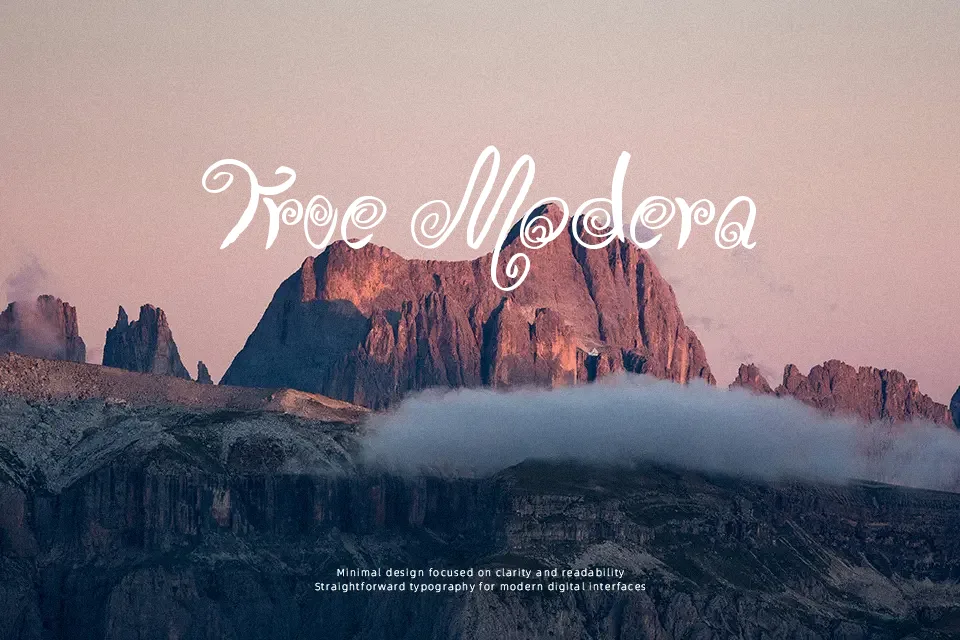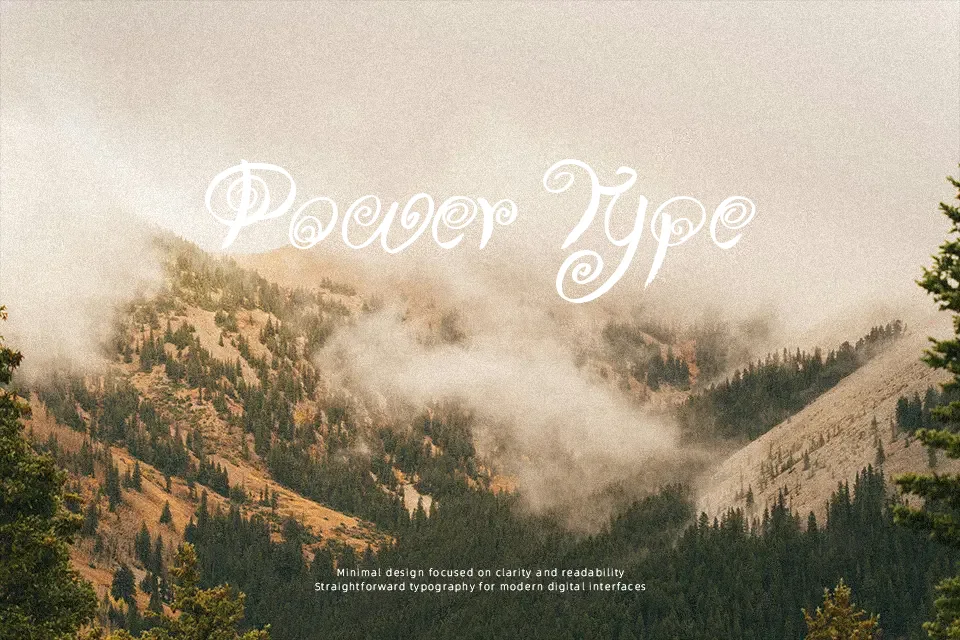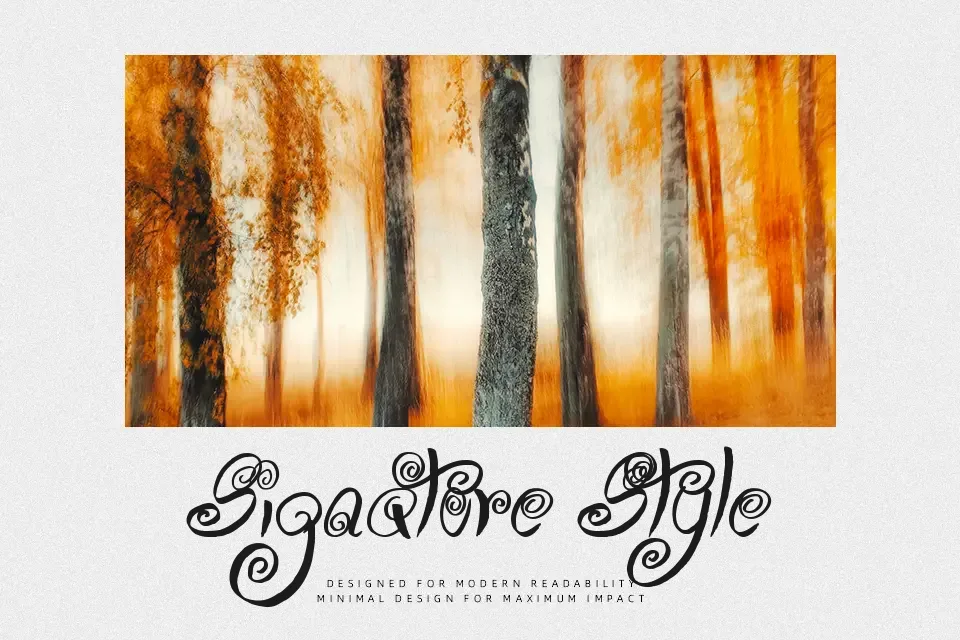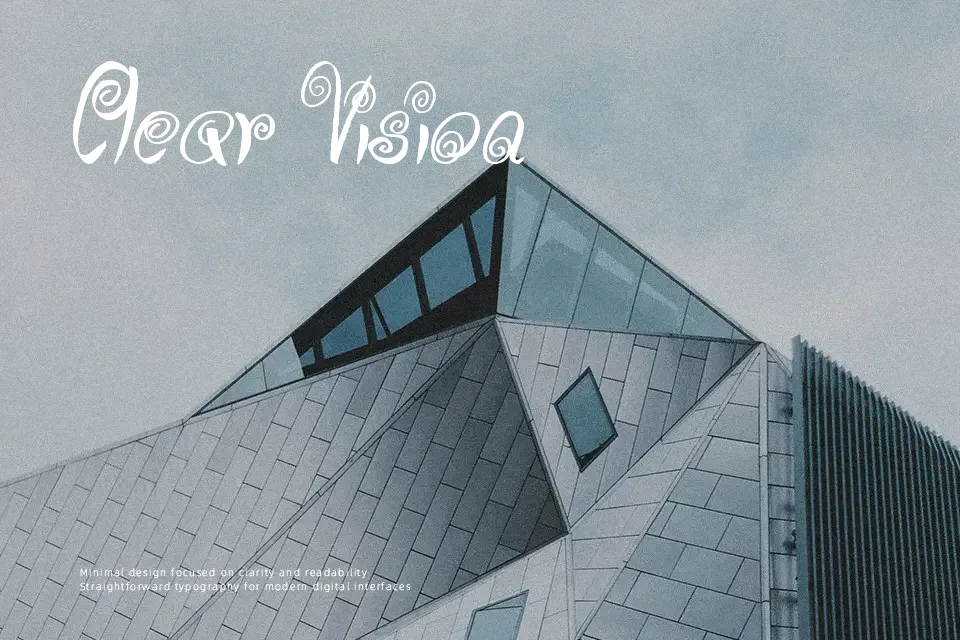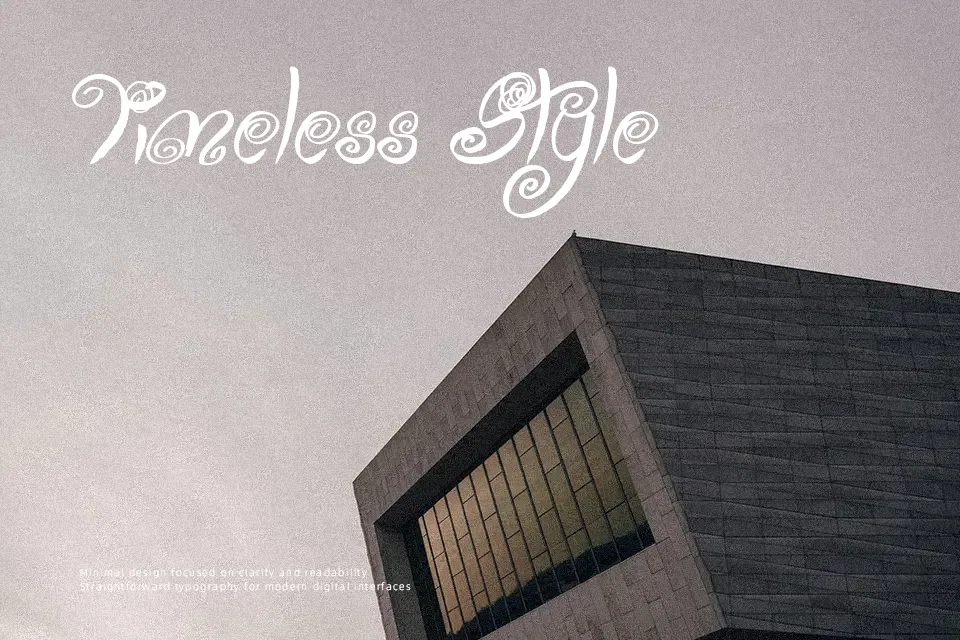
Swirly Shirley Font
Swirly Shirley Font features energetic decorative letterforms embellished with tight circular curls, consistent stroke weights, and generous proportions across its character set. The open letter spacing gives each glyph sufficient room to display its ornate flourishes without colliding into neighboring letters. While the rounded curves bring a whimsical feel to short headlines, apparel prints, and event signage, dense paragraphs quickly become difficult to decipher due to the repetitive spiral details. The letterforms maintain distinct silhouettes in brief titles, yet the elaborate terminals demand ample leading and larger display sizes to preserve visual balance across creative layouts.
Best For: greeting card headings, party invitations, boutique product packaging, event banner titles
Not Ideal For: long body paragraphs, dense editorial layouts, small interface labels, technical documents
Perfect for branding, headline, and invitation, with a artistic and decorative style.